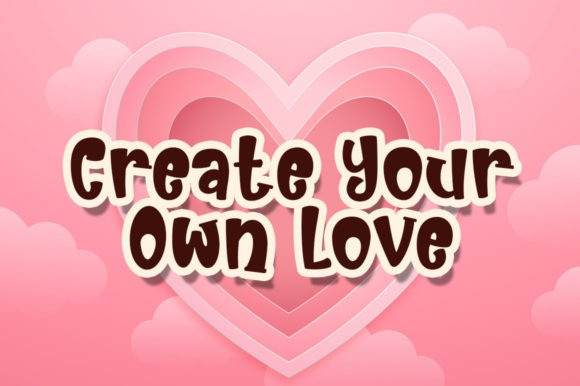
Zahra Font
Zahra Font is a chic and playful display font. It can be used for various purposes such as logos, headings, t-shirts, letterheads, signage, labels, news, posters, badges and so much more.